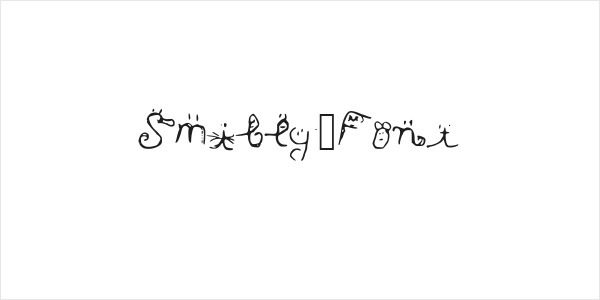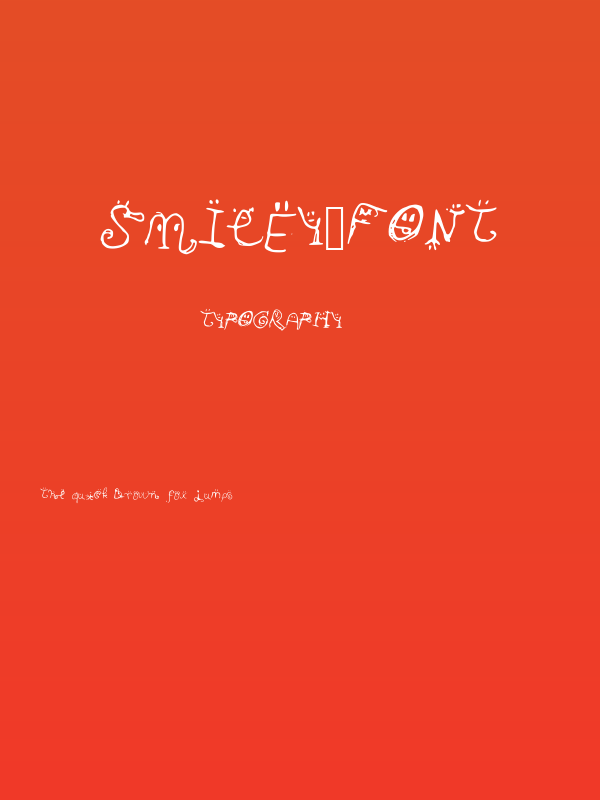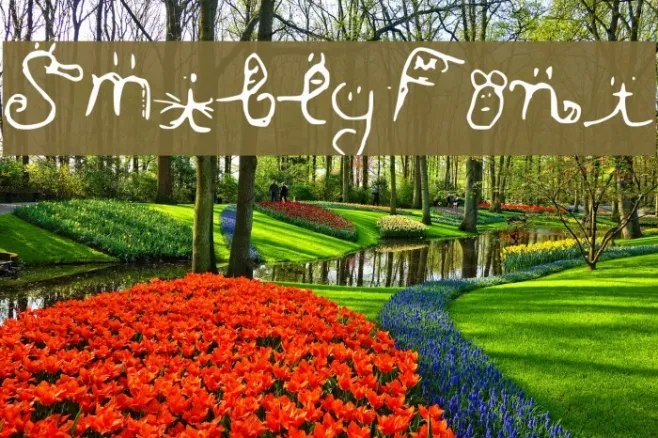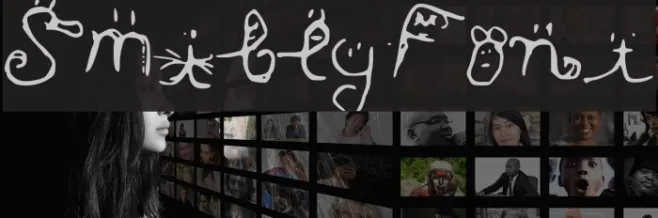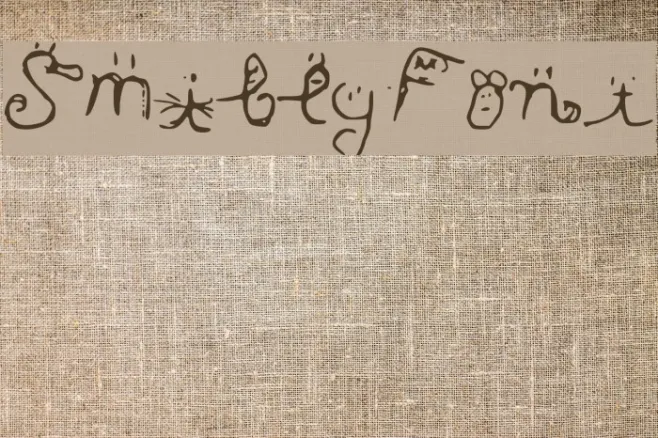
Smiley_Font Font
Smiley_Font Description
This playful and whimsical font features characters adorned with smiley faces and quirky embellishments, creating a lively and animated appearance. Each letter and number is uniquely styled with expressive elements, such as dots and swirls, giving the font a hand-drawn, artistic feel. The overall design is informal and fun, making it ideal for projects that aim to convey a sense of joy and creativity. The characters are bold and slightly irregular, adding to the font's charm and individuality. The special characters continue this theme, incorporating smiley faces and playful designs that enhance the font's distinctive personality.